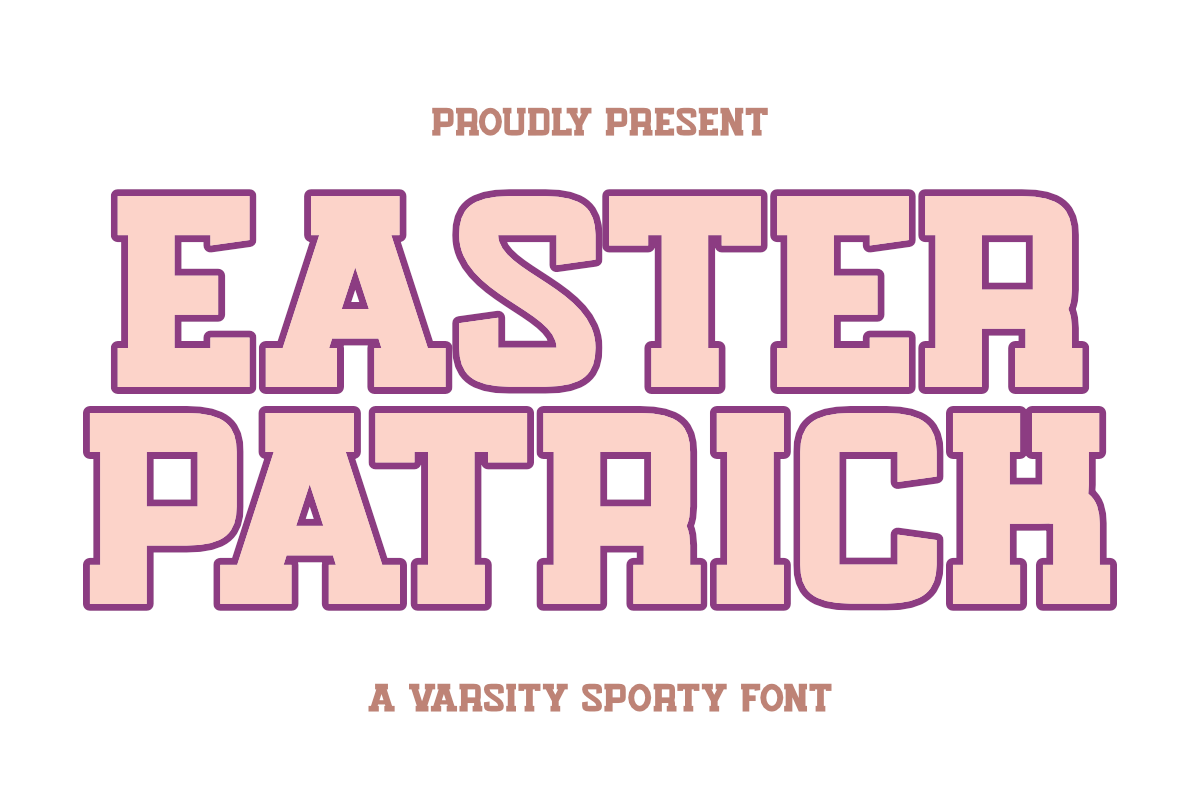
Easter Patrick - Varsity Sport Font Free Download
Easter Patrick - Varsity Sport Font Free Download is a bold and athletic typeface inspired by collegiate and varsity sports designs. With its strong, geometric lines and sporty aesthetic, this font is perfect for creating sports team logos, jerseys, event posters, and anything that requires a high-energy, competitive vibe.
The font’s clean, blocky letterforms give it a structured, professional feel while maintaining a dynamic presence. Whether you’re designing for a sports brand, a school event, or a competitive league, Easter Patrick adds power and determination to your typography.